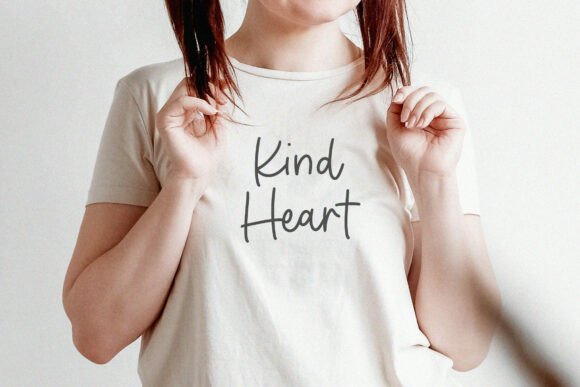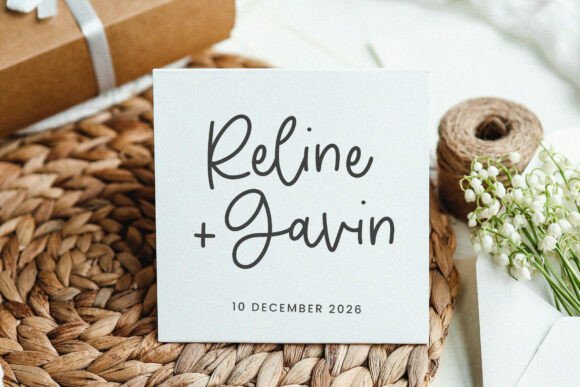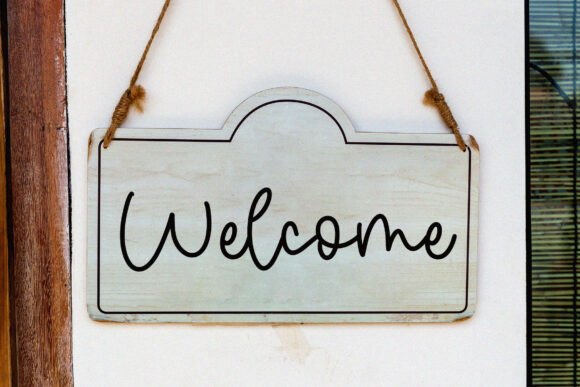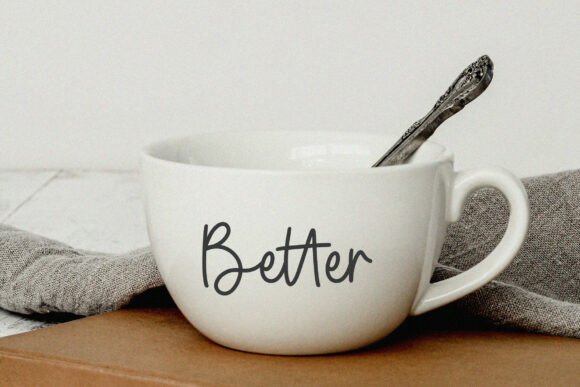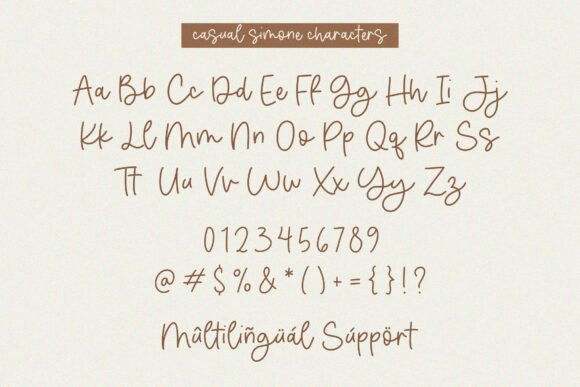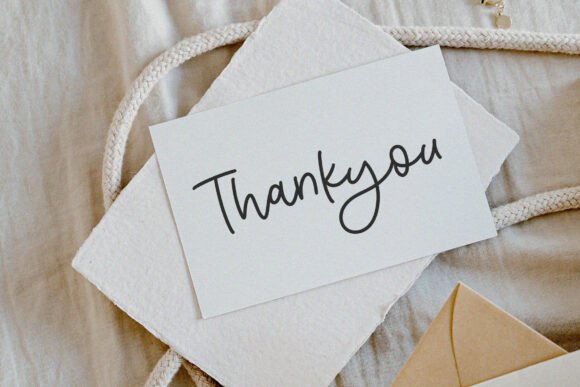
Introducing Casual Simone Font: The Perfect Handwritten Script Font for Your Creative Projects
Are you looking for a font that can add a personal touch to your designs? Look no further than Casual Simone Font, a beautiful handwritten script font introduced by Timurtype Studio. This font is perfect for designers and crafters who want to create friendly, approachable designs that stand out from the crowd.
What Makes Casual Simone Font Special?
Casual Simone Font is a handwritten script font that blends a relaxed, informal feel with expressive brush-like strokes. Its slightly irregular letterforms and smooth curves give it a natural, touch similar to real handwriting. This makes it perfect for creating social media graphics, branding, invitations, or creative projects that need a casual yet stylish look.
Key Features of Casual Simone Font
- Handwritten Script Font: Casual Simone Font is a handwritten script font that adds a personal touch to your designs.
- Relaxed and Informal Feel: The font features a relaxed, informal feel that is perfect for creating friendly and approachable designs.
- Expressive Brush-Like Strokes: The font includes expressive brush-like strokes that give it a natural, hand-written look.
- Slightly Irregular Letterforms: The font features slightly irregular letterforms that add to its natural, hand-written feel.
- Smooth Curves: The font includes smooth curves that give it a fluid, natural look.
Multilingual Support
Casual Simone Font also supports multilingualism, making it perfect for designers and crafters who work with clients from around the world. Whether you’re creating designs for a global audience or simply want to add a personal touch to your projects, this font has got you covered.
Why Choose Casual Simone Font?
There are many reasons why designers and crafters love Casual Simone Font. Here are just a few:
- Unique and Expressive: The font’s handwritten script style and expressive brush-like strokes make it perfect for creating unique and eye-catching designs.
- Easy to Read: Despite its informal feel, Casual Simone Font is easy to read, making it perfect for body text and headlines.
- Versatile: The font is versatile and can be used for a wide range of design projects, from social media graphics to branding and invitations.